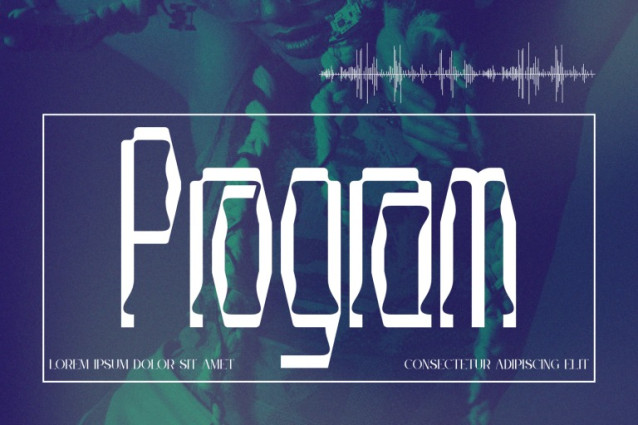
Associated Challenges Font
Associated Challenges Font is an industrial modular display sans serif typeface inspired by mechanical structures and engineered forms. Built from bold geometric components and solid block shapes, this font delivers a strong, technical, and industrial visual identity. Featuring both Uppercase and Lowercase letters, approximately 100 custom special ligatures, complete Numerals & Punctuation, and extensive Accented characters, Associated Challenges enables designers to create powerful, structured, and high-impact typographic compositions. Its modular construction, mechanical details, and bold proportions make it perfect for industrial branding, technology projects, posters, gaming, robotics themes, and futuristic design concepts.
🔤Features:
Uppercase & Lowercase Letters
Around 100 Special Ligatures & Alternates
Accented Characters for multilingual support
🔤About 100 ligatures combined with Stylistic Alternates Font: